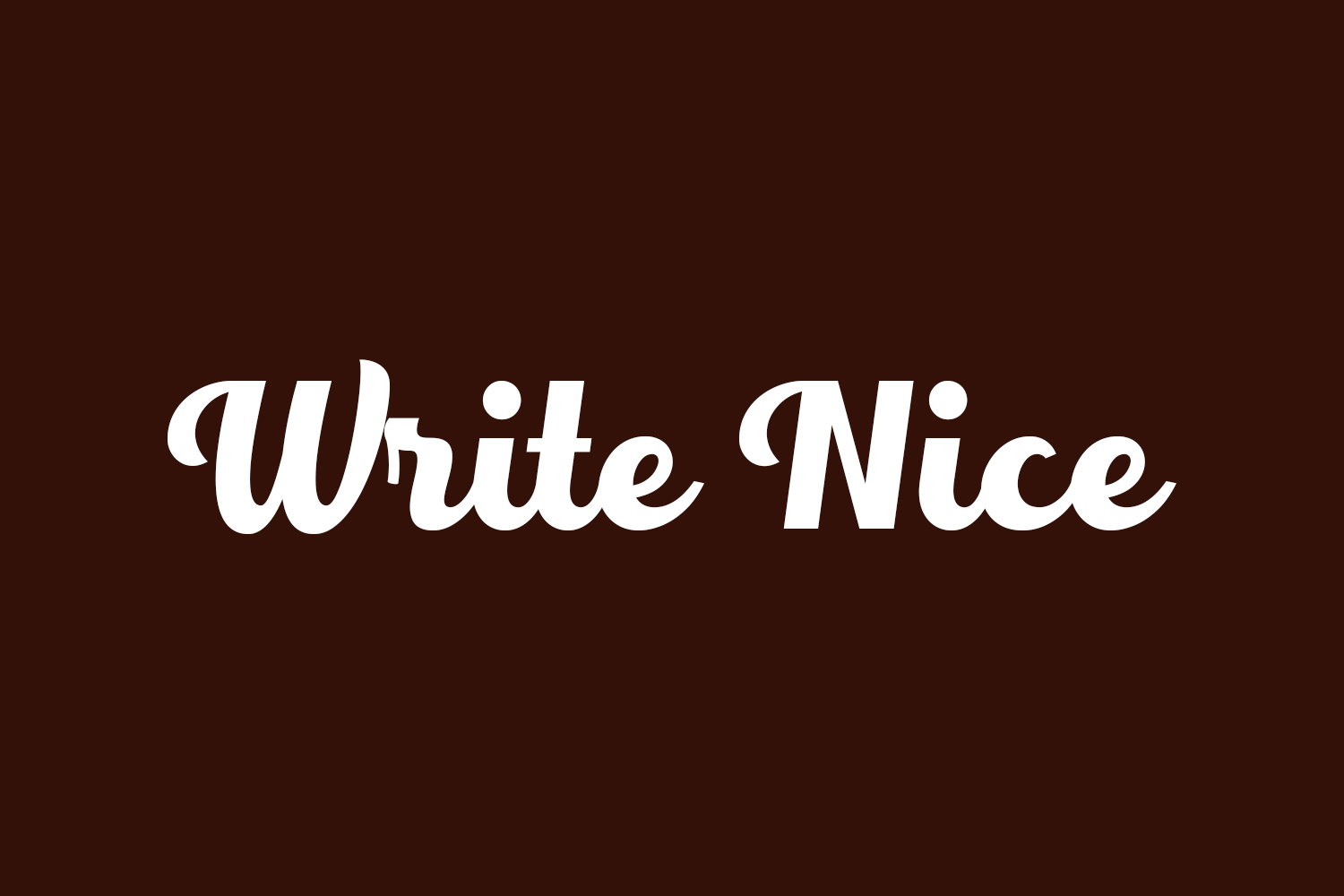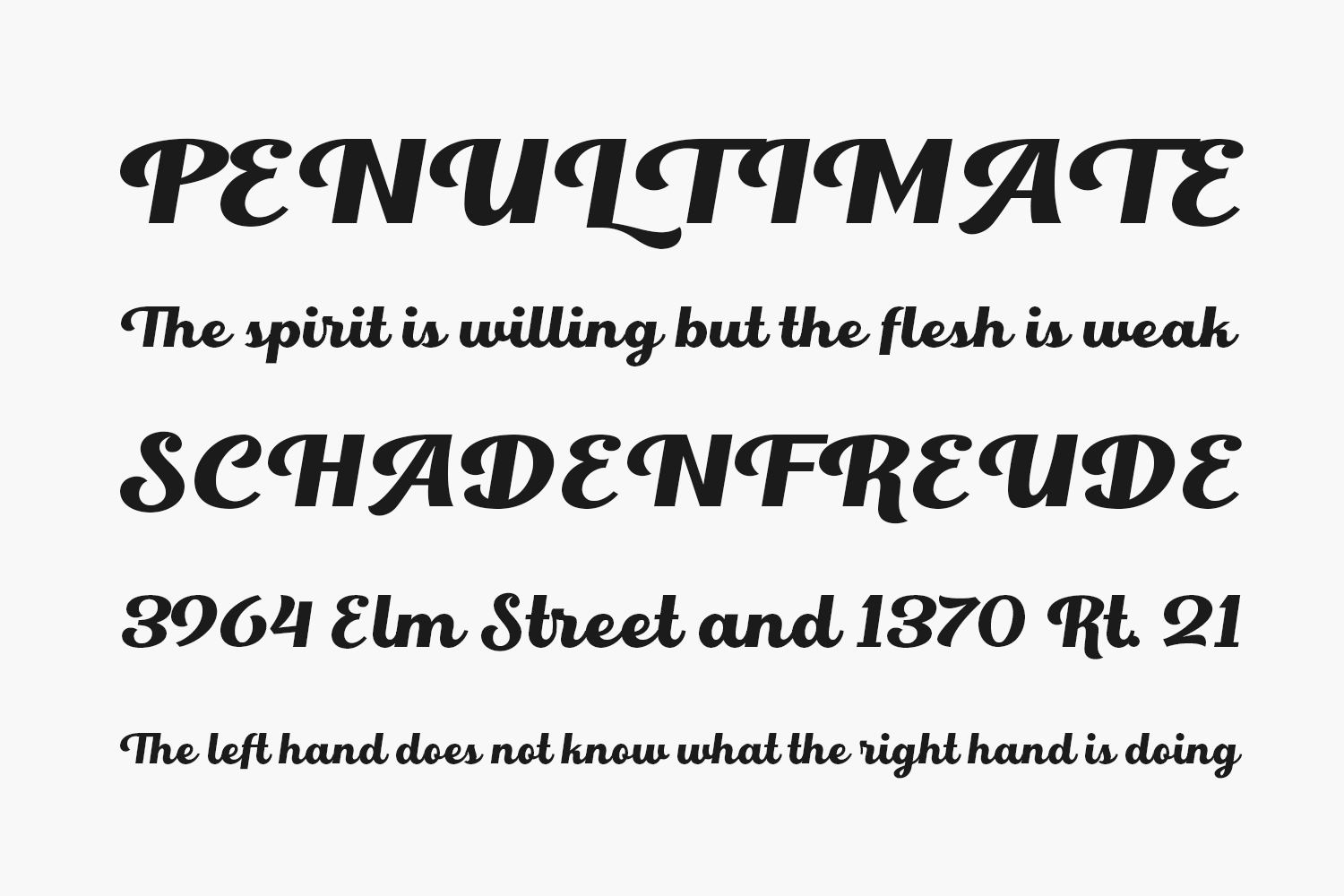
Write Nice Free Font is a modern and playful script font. It’s great for crafters and designers. Write Nice Free Font was designed by Kong Font and is free for personal or commercial use.